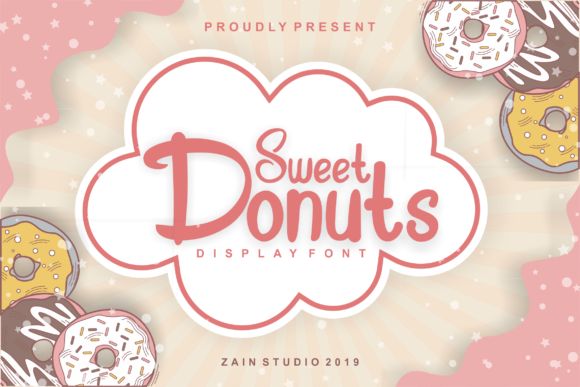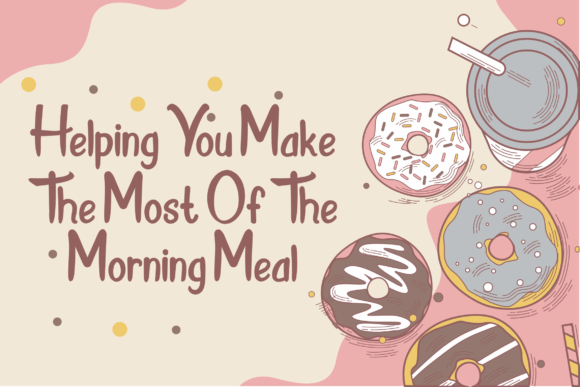
Sweet Donuts Font
Sweet Donuts pays homage to classic calligraphy with its beautiful swashes and hand-drawn letters. Fall in love with its lovely style!